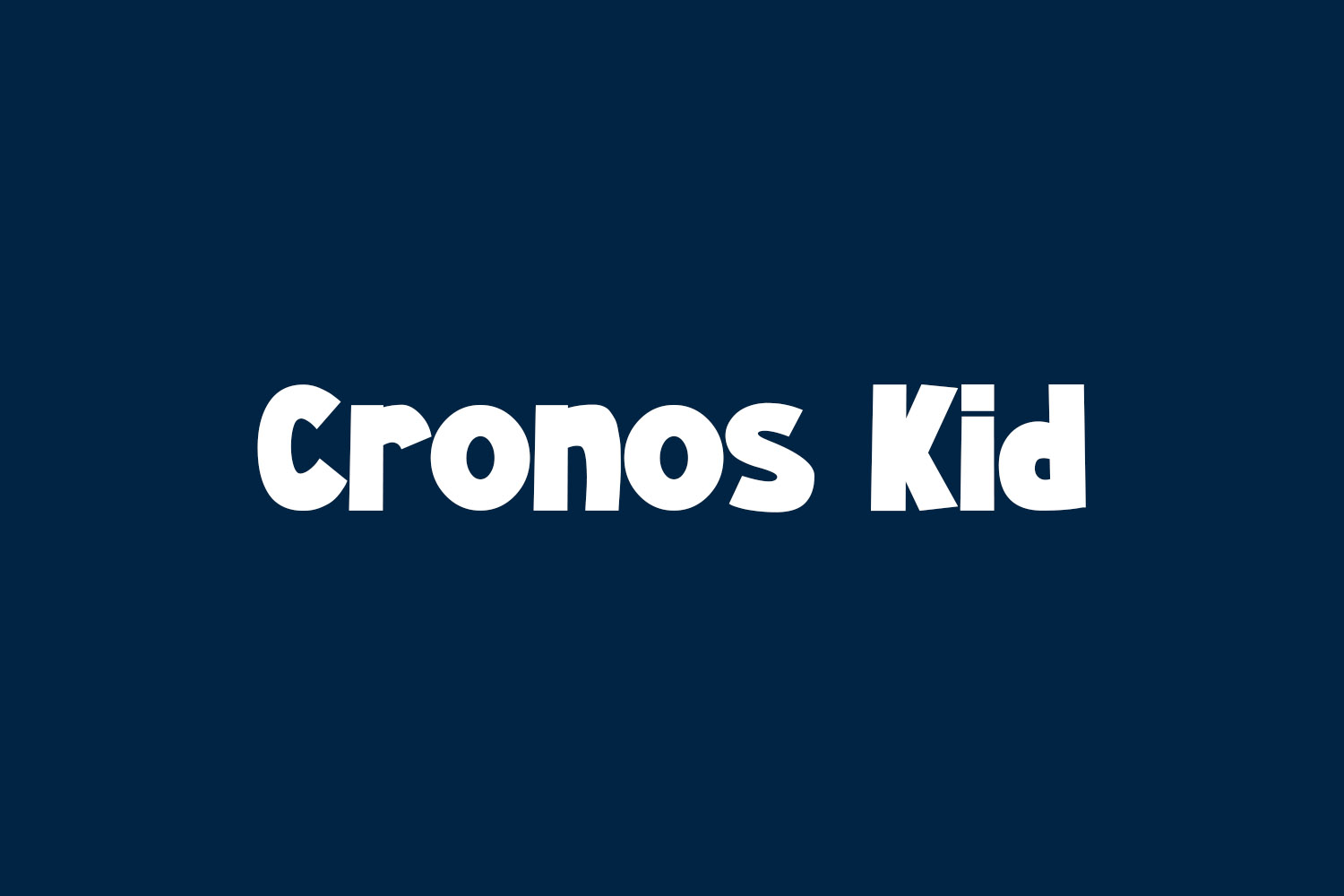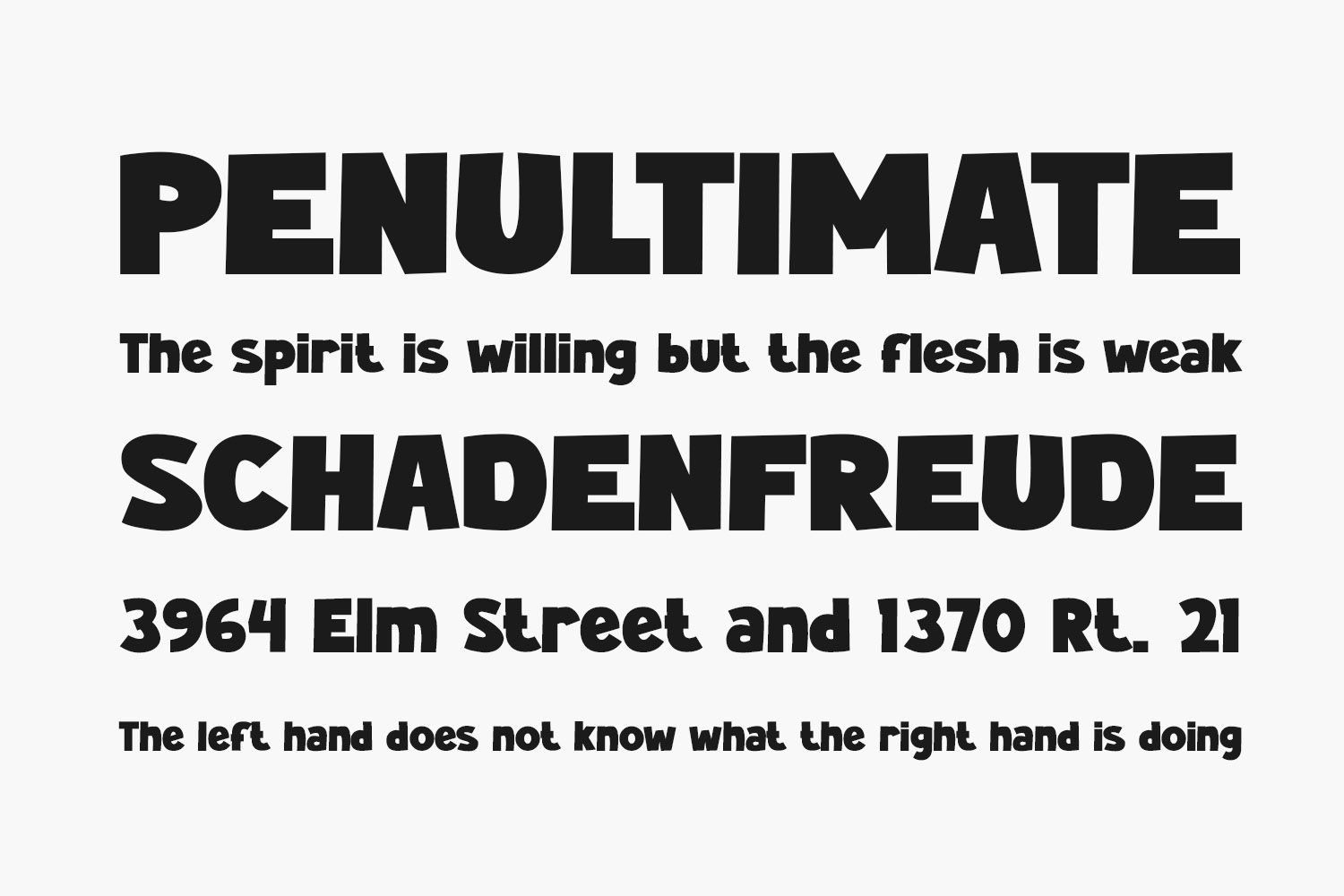
Cronos Kid Free Font is a burst of fun that’s sure to bring a smile to your face. Its bold and playful shapes will ensure your words grab all the attention they deserve. Ideal for pop culture books, online games, teen event posters, school supply branding, movie titles, YouTube covers, thumbnails, and social media page covers, and much more. Cronos Kid Free Font is free for personal use only. Please purchase the full version for commercial use.
Designed by Pinisiart